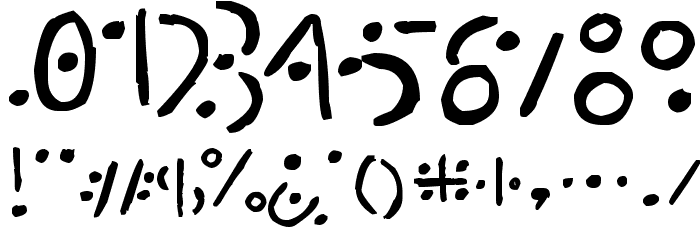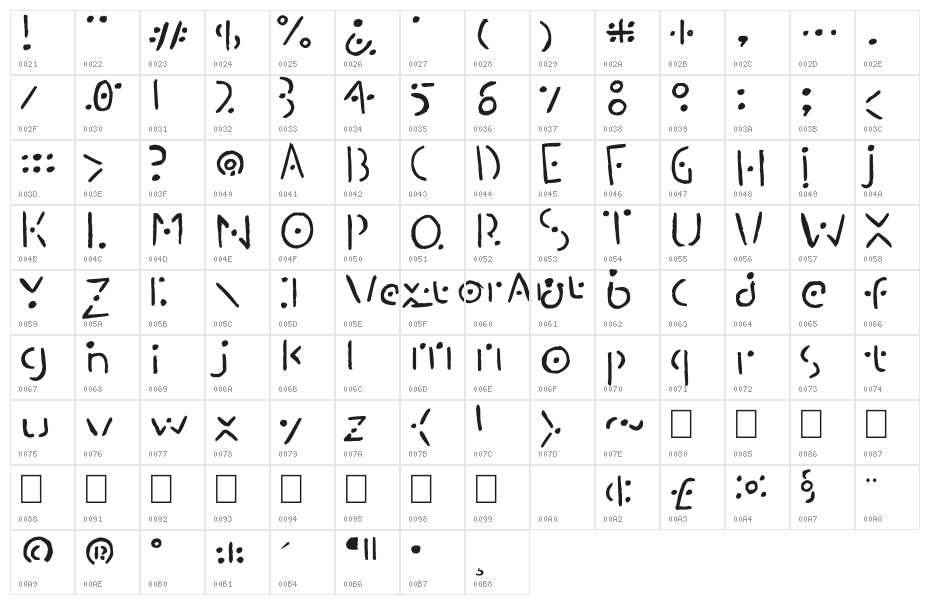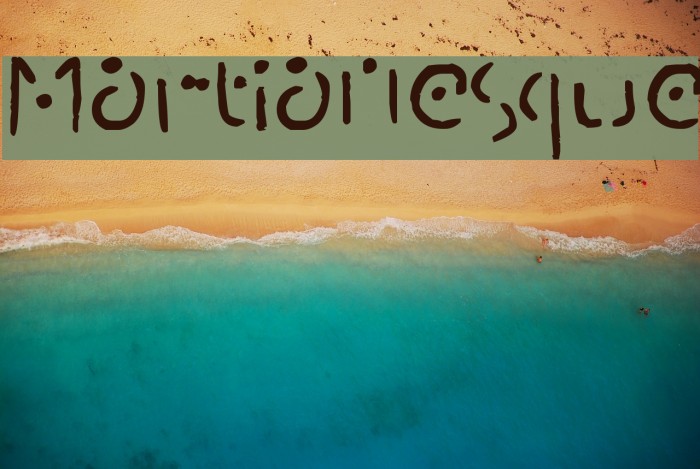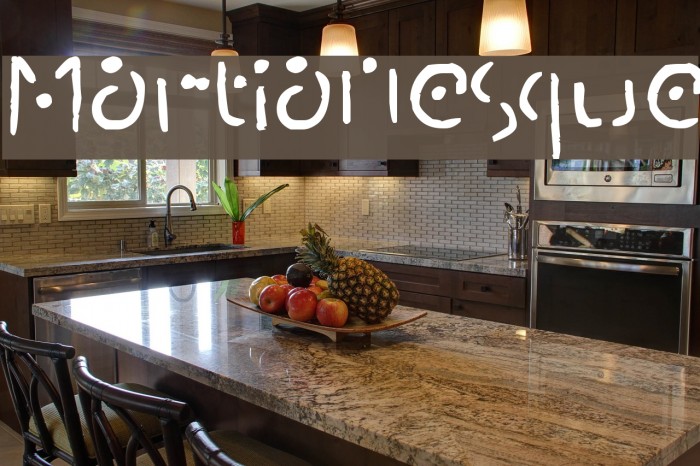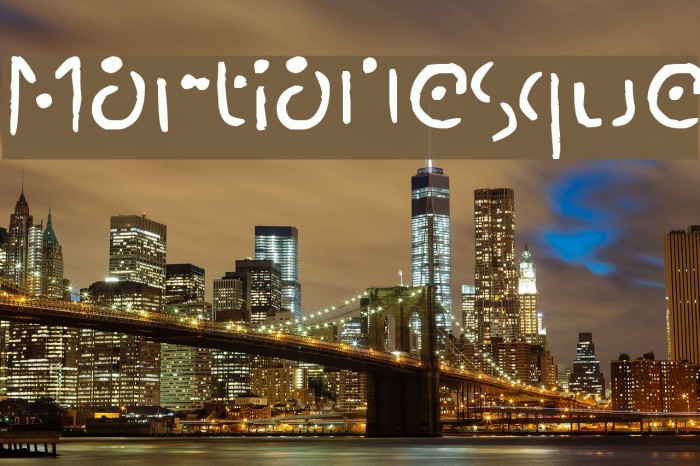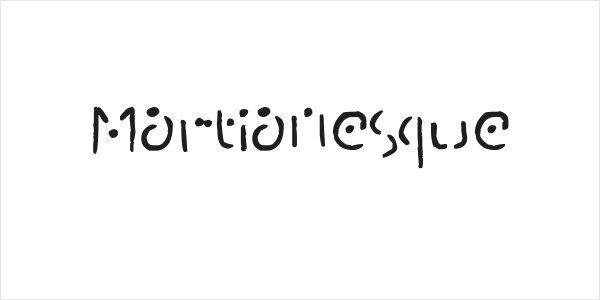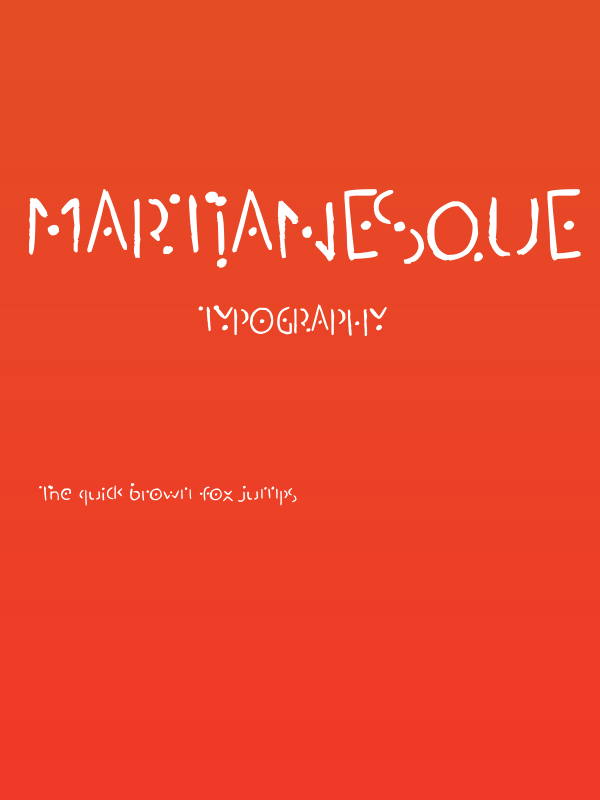
Martianesque Font
Martianesque Description
This font features a playful and extraterrestrial design, with characters that appear as if they are crafted from a series of dots and lines, giving it a unique and whimsical appearance. The letters are bold and have a hand-drawn quality, with irregular shapes and sizes that add to its quirky charm. The font includes both uppercase and lowercase letters, numbers, and a variety of special characters, all maintaining the same distinctive style. The overall look is reminiscent of alien or futuristic writing, making it ideal for creative projects that require an unconventional and eye-catching typeface.
| Proposed Projects | Ideal for sci-fi themed posters, children's books, video game graphics, and creative branding. |